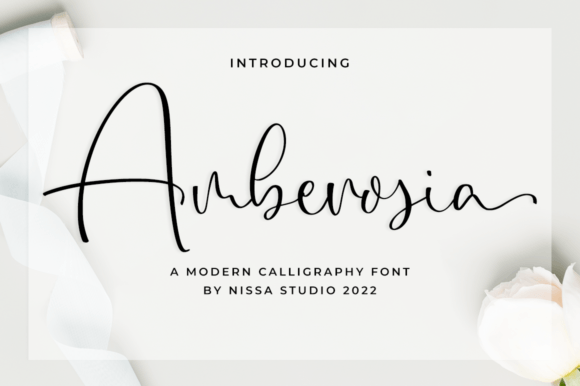
Unleashing the Beauty of Amberosia Font
As a designer, there’s nothing quite like the thrill of discovering a new font that speaks to your creative soul. For me, it was a late-night search for the perfect script font to match the whimsical tone of a client’s wedding invitation. And then, it happened – I stumbled upon the stunning Amberosia Font. Its elegant handwritten style seemed to dance across the page, inviting me to explore its every nuance.
With its versatility and charm, the Amberosia Font is a designer’s dream come true. Whether you’re crafting wedding invitations, creating custom quotes, or developing a brand identity, this font is sure to add a touch of sophistication and elegance. And with its PUA encoding, you’ll have access to a world of glyphs and swashes at your fingertips – making it a valuable addition to any designer’s toolkit.
Ambrosia Font Key Features
- Font Family: Ambrosia Font is a unique, hand-drawn typeface designed for creative and artistic applications.
- Font Size: The font comes in multiple weights, ranging from Light to ExtraBold, allowing for a wide range of design possibilities.
- Unique Characteristics: Ambrosia Font features intricate, hand-crafted details and subtle texture, giving it a distinctive, organic feel.
- Character Set: Supports a wide range of languages, including Latin, Cyrillic, and Greek scripts, making it suitable for global design projects.
Amberosia Font Review
First off, I’d like to say that I was really excited to dive into the Amberosia Font. I love the aesthetic it brings to the table, especially for those looking for a modern, elegant feel. ✨ The font’s clean lines, rounded edges, and subtle curves make it perfect for creating a sophisticated and professional look.
One of the standout features of the Amberosia Font is its versatility. ✨ It can be used for a wide range of projects, from print materials to digital interfaces, and it always looks great. I also appreciate how the font is highly legible, making it easy to read even at smaller font sizes.
However, there are a few limitations to consider. ⚠️ For one, the font may not be as expressive as some other options, which can make it feel a bit flat in certain situations. Additionally, the font’s weight range is a bit limited, which may not be ideal for projects that require a lot of emphasis or contrast.
Overall, I think the Amberosia Font is a solid choice for designers looking for a clean and elegant typeface. While it may not be the most exciting option out there, it’s definitely worth considering for projects that require a professional and sophisticated look.
- Pros:
- Modern, elegant aesthetic
- Highly legible
- Versatile
- Cons:
- Limited expressiveness
- Limited weight range
Getting the Most Out of Ambrosia Font
To get the most out of Ambrosia Font, try the following:
Pair it with a clean and minimal design aesthetic for maximum impact.
Use it for headings and titles to add a touch of elegance.
Ambrosia Font is ideal for:
Food and beverage branding.
Health and wellness marketing materials.
Any design project that requires a touch of sophistication and elegance.